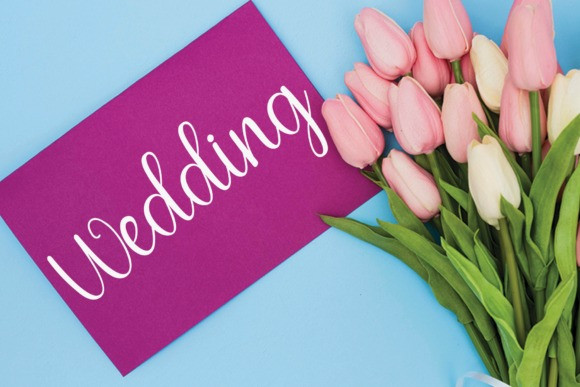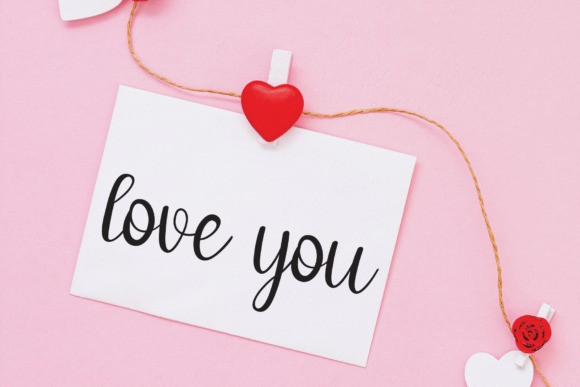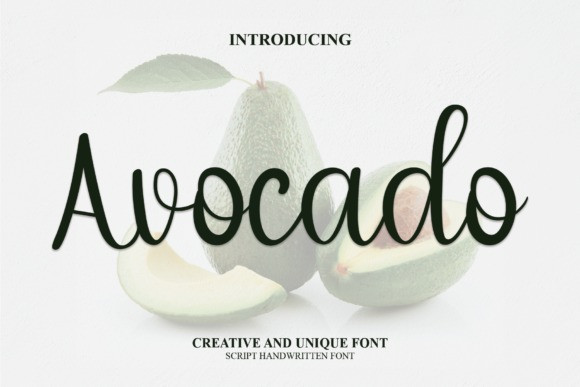
Avocado Font
Avocado Font is a sweet handwritten font that was crafted with great care to produce the expected results. This font can be used to write various kinds of products according to their individual needs.